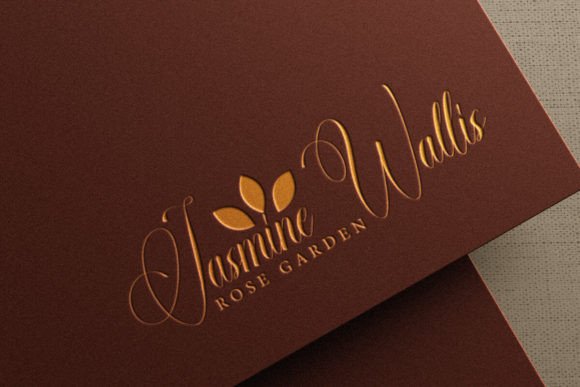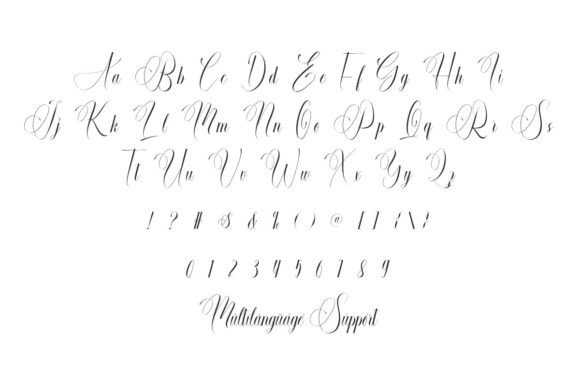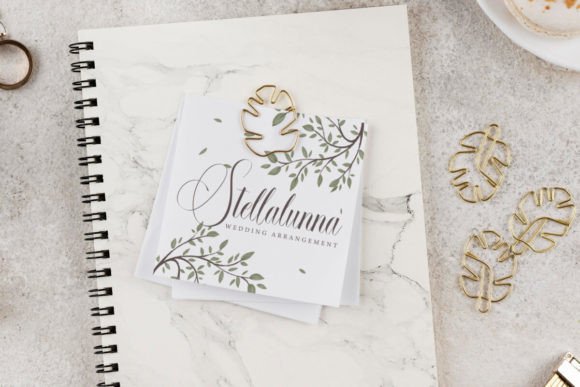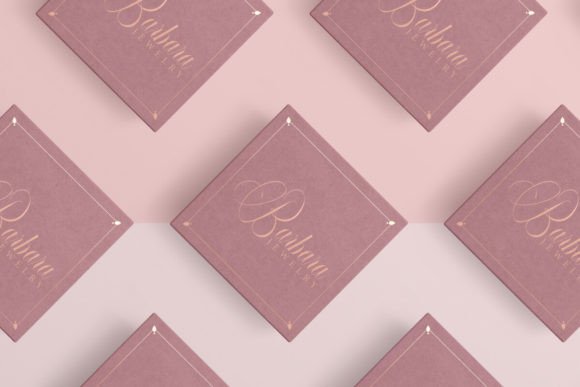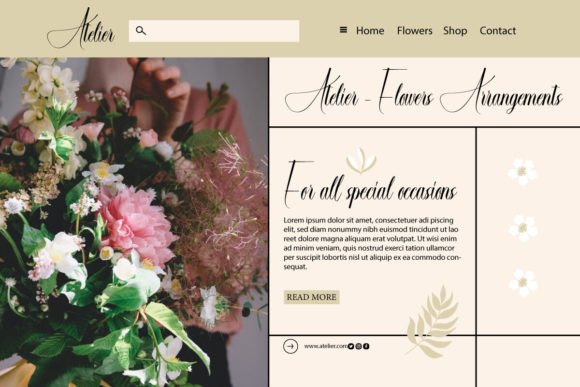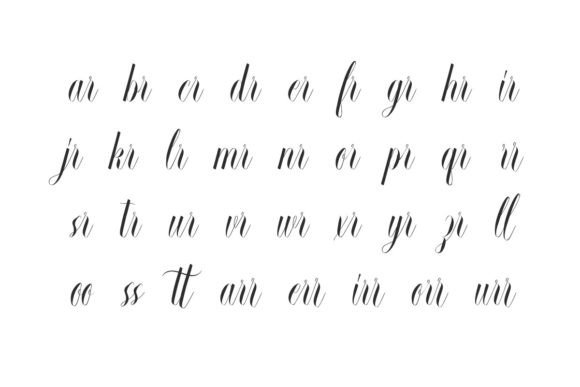
Introduction to Rosella Sidney Font Font
Fonts play a crucial role in design, and the Rosella Sidney Font font is a typeface that brings both character and versatility to any project. Whether you’re working on a branding project, a website, or a print design, the Rosella Sidney Font font offers a unique style that can elevate your work.
Rosella Sidney Font is a beautiful wedding calligraphic font.
This font comes with light lines that will make your designs look gorgeous and still easy to read This font will be suitable for many industries, such as accessories and jewelry, boutiques, florists, hotels and resorts, perfume, printing, publishing, skincare, spa, wedding organizer, and more.
Key Features of Rosella Sidney Font Font
Why Choose Rosella Sidney Font Font?
The Rosella Sidney Font font is more than just a typeface – it’s a design tool that helps you communicate your message with style and clarity. Its unique character set and versatile design make it suitable for a wide range of applications, from elegant invitations to bold headlines.
With its carefully crafted letterforms and balanced proportions, the Rosella Sidney Font font ensures readability and visual appeal across all mediums.
What makes Rosella Sidney Font font special?
The Rosella Sidney Font font stands out with its unique design, exceptional readability, and versatility across various design applications.